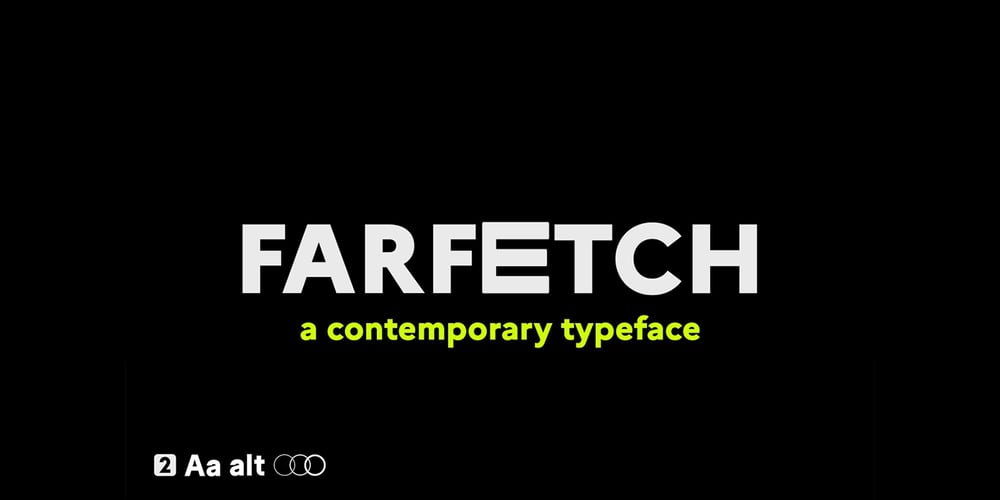
Far Fetch Font Family was designed by Ally Msuo and published by Kijiji Hub. Far Fetch contains 2 styles and family package options. Farfetch is inspired by the serif typefaces used in editorial media and magazines. Farfetch is a contemporary typeface sans-serif typeface designed to give a fresh extended look. This typeface is ideal for display purposes like logos and big, bold headlines with extended language support (+ Cyrillic), fractions, tabular figures, arrows, ligatures and more. here are over 547 glyphs that allow you endless customizationsIt comes in 2 different weights with 1 styles in each weight (Standard & Slanted).